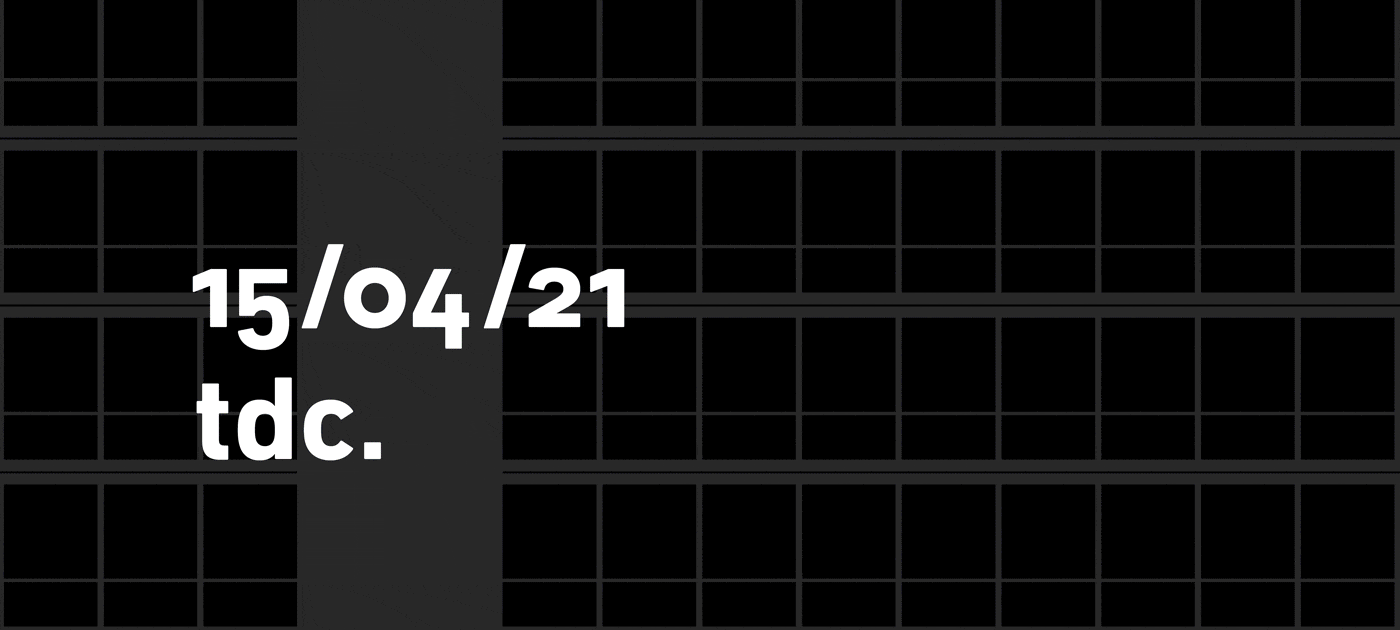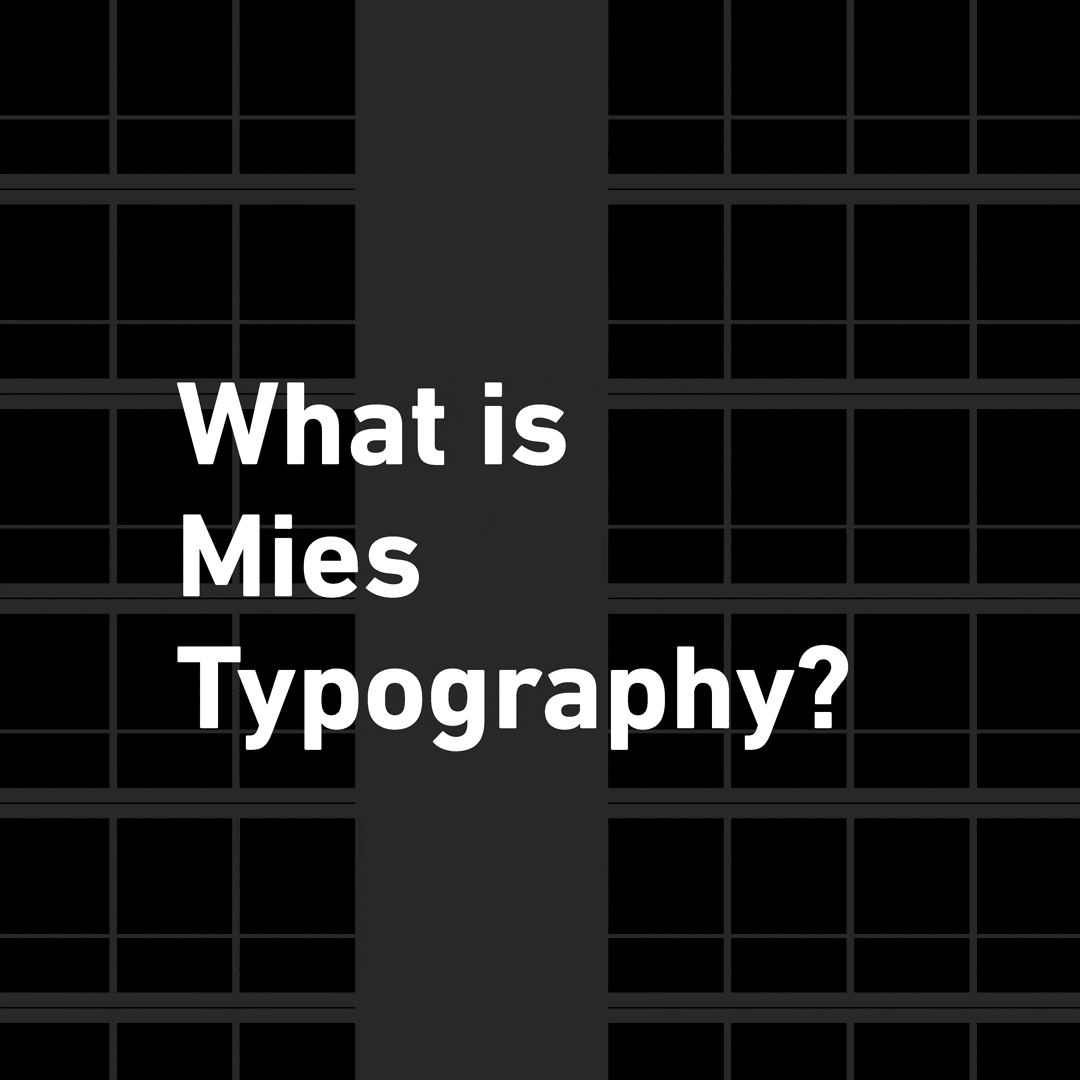
The Search for Mies Typography: Branding 900 910 Lake Shore Drive
What is Mies typography? What typefaces did Mies himself use? How would Mies have wanted his buildings branded in the 21st century?
These are questions asked by Sofya Karah and Dan McManus, Design Directors at The Narrative, while rebranding 900 910 North Lake Shore Drive, a pair of perpendicular glass and steel highrise buildings designed by Mies van der Rohe in Chicago. They will be discussing their research-based methodology, historical discoveries about Mies van der Rohe, and the design process behind the rebrand of these iconic buildings.